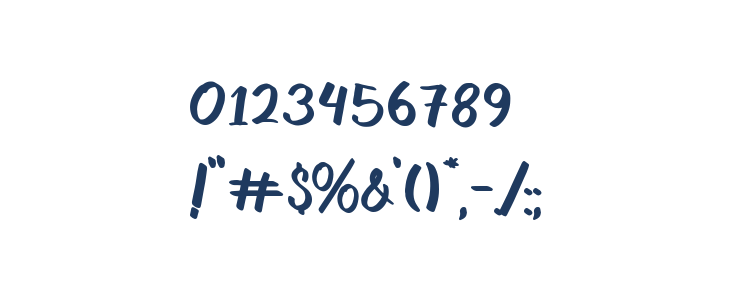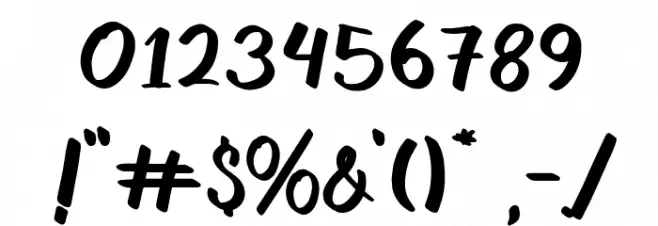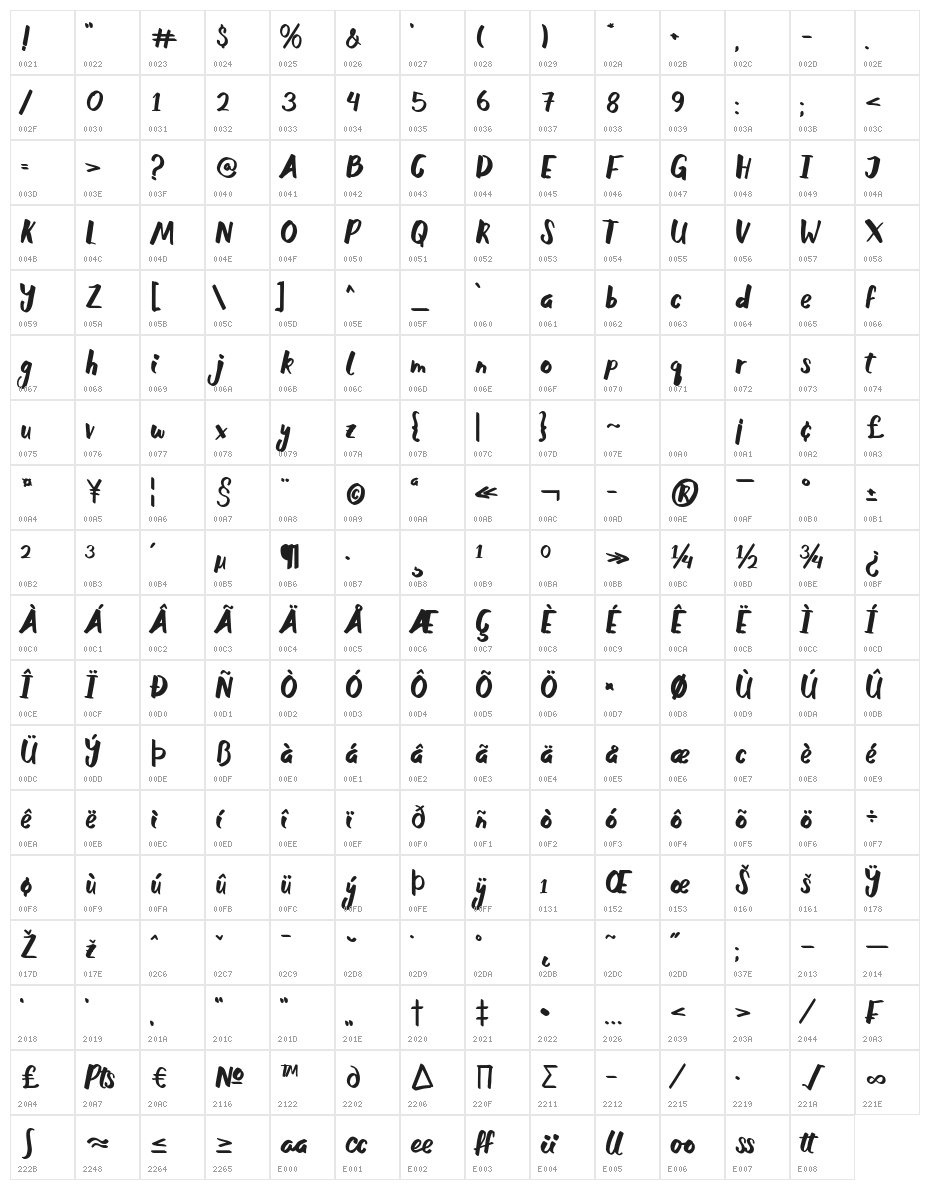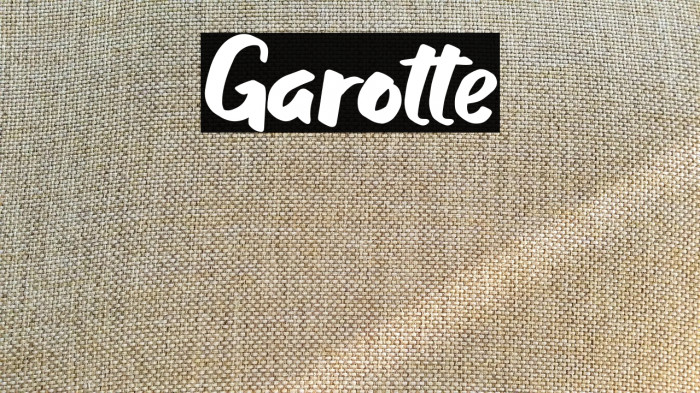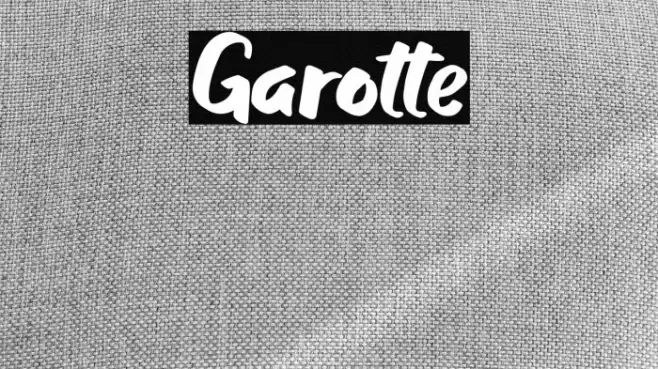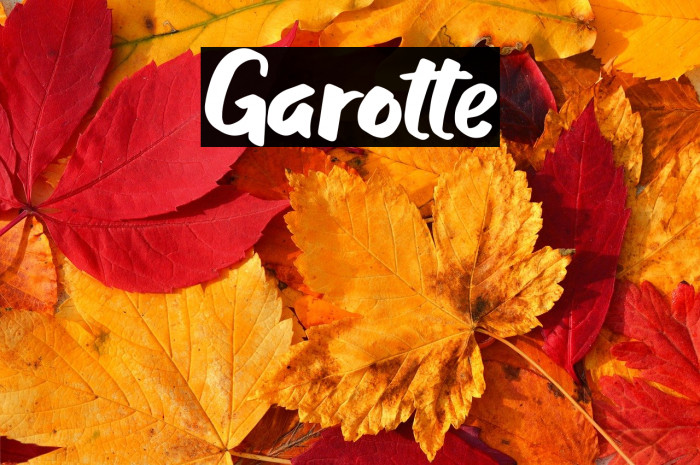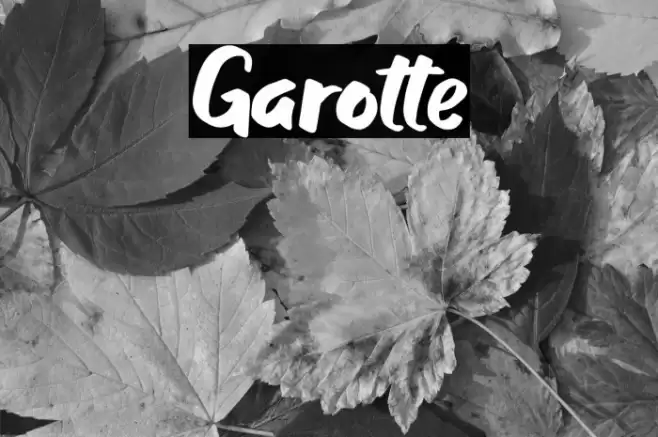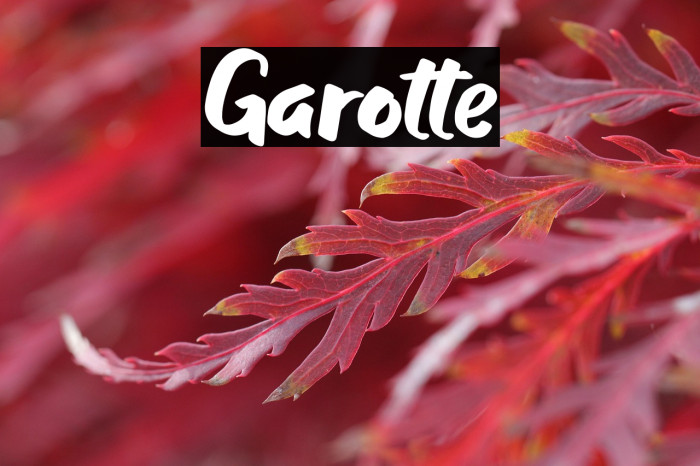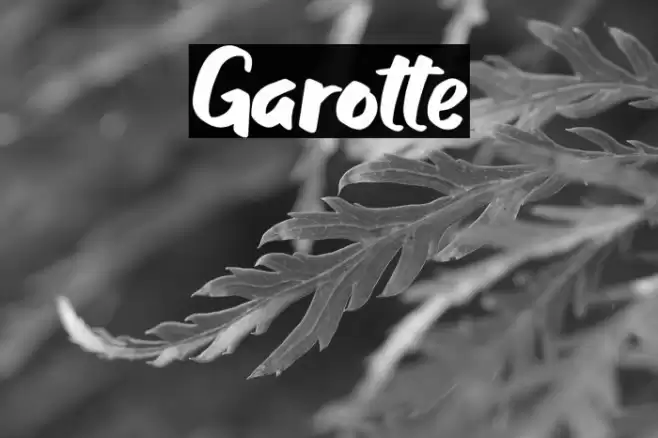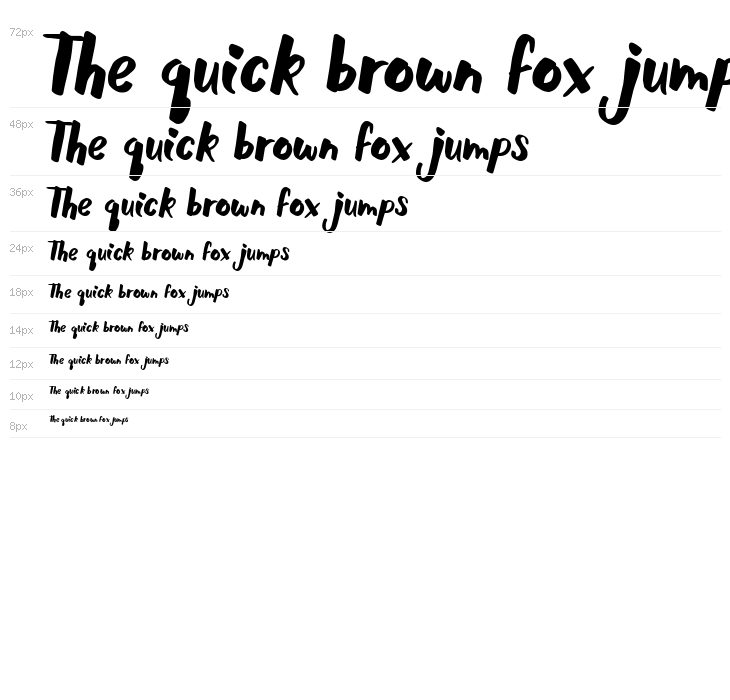
Garotte Font
Garotte Description
This font features a bold, expressive style with a handwritten appearance. The uppercase letters are dynamic and slightly slanted, giving a sense of motion and energy. The lowercase letters maintain a consistent flow, with some characters extending below the baseline, adding to the casual and artistic feel. Numbers are bold and clear, matching the overall style of the alphabet. Special characters are creatively designed, maintaining the playful and informal aesthetic. This font is perfect for projects that require a personal touch or a creative flair.